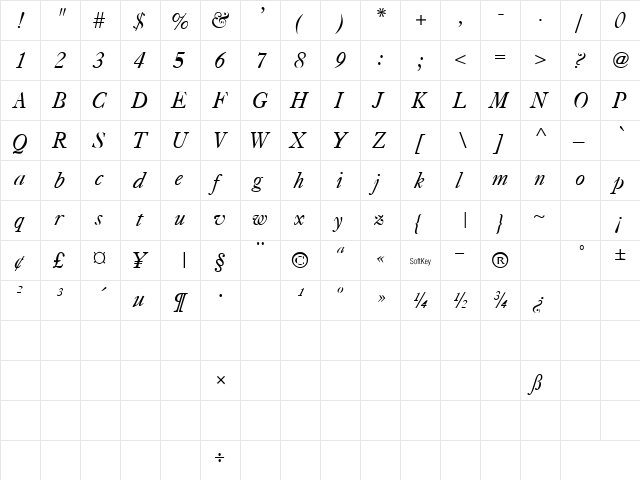
Casque Italic
Design Context for Casque Typeface
Casque offers clean, dependable letterforms without strong stylistic allegiance, making it a practical choice for designers who need flexibility. Its italic angle brings a sense of urgency and motion to the letterforms.
Pro Tip: Use Casque for emphasis, pull quotes, and subheadings where its slanted energy can add rhythm to the layout.